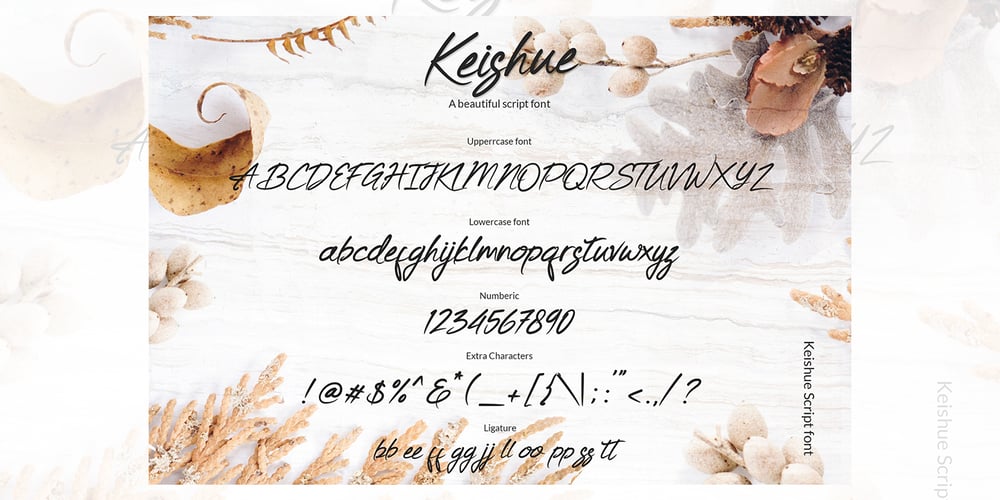
Keishue Font Family was designed by Yahdi Kumala and published by Rometheme. Keishue contains 1 styles and family package options. Keishue is a modern handwritten typeface, beautiful and luxurious. This elegant and beautiful font is stylish and versatile so you can use in a plethora of designs in both digital and print applications.